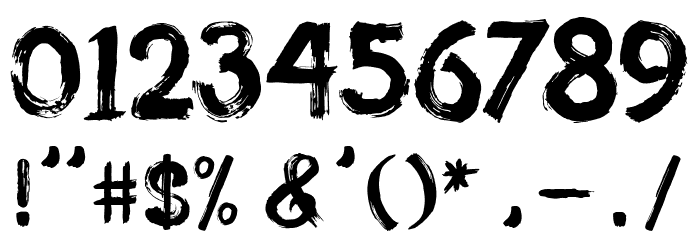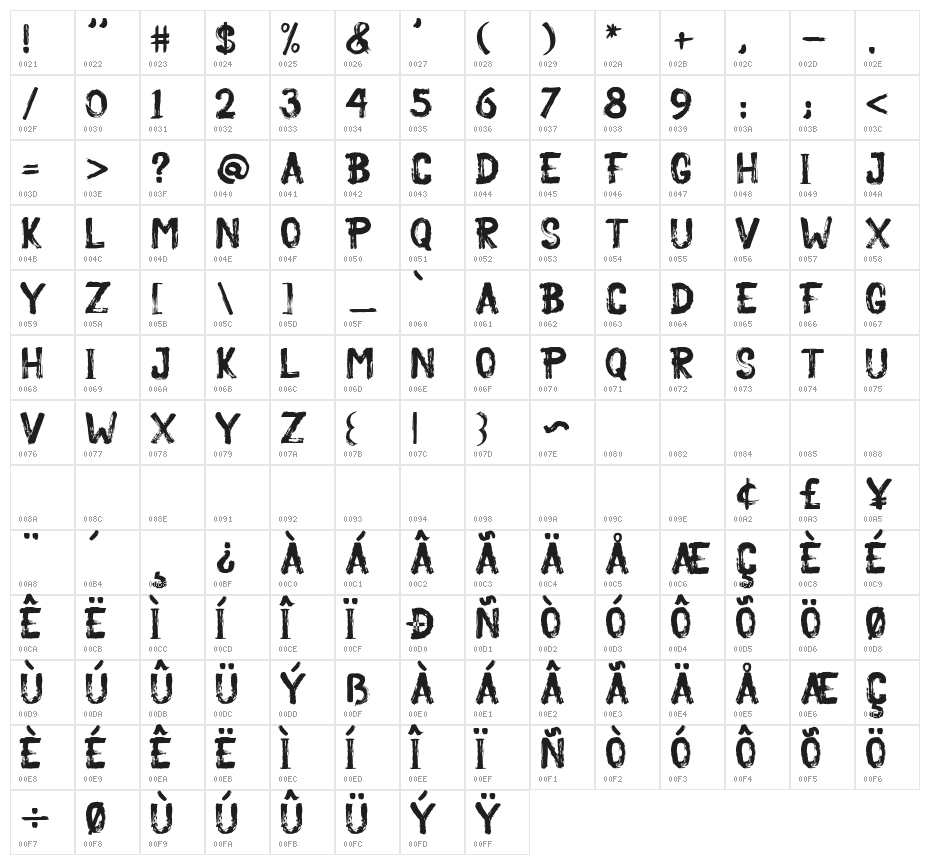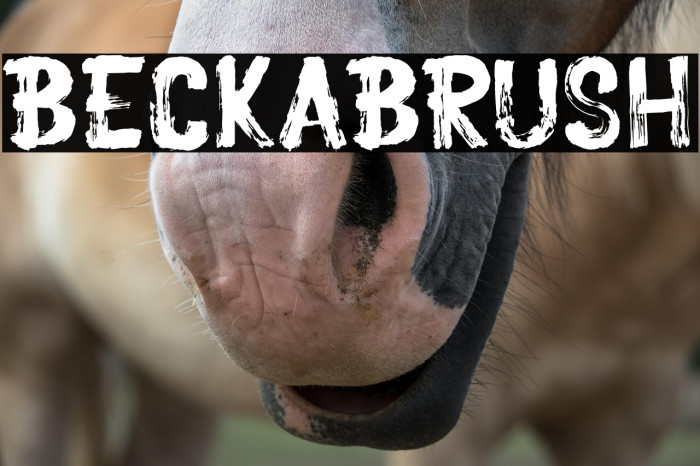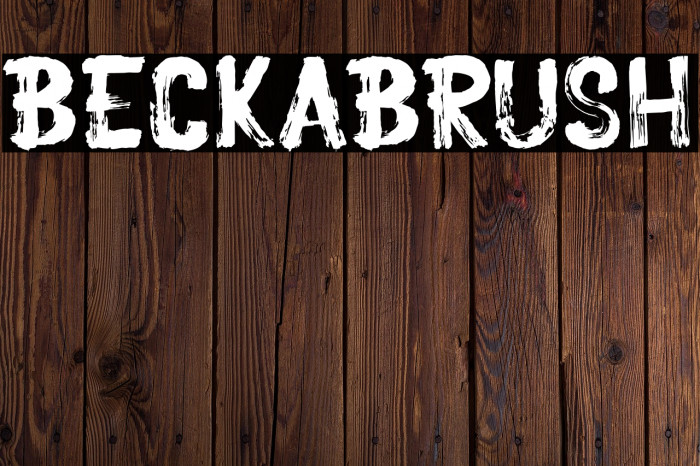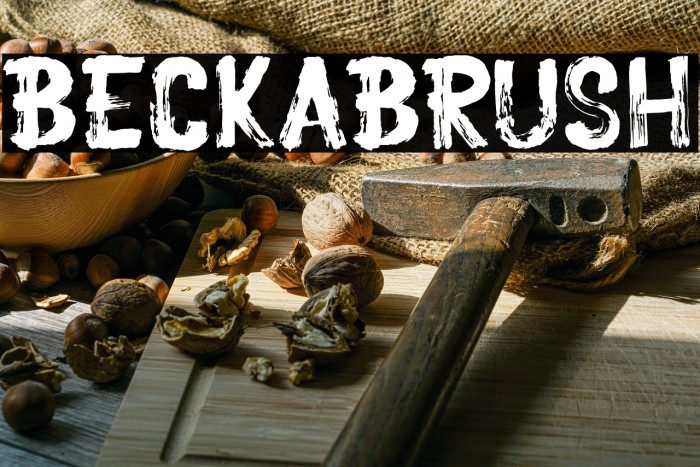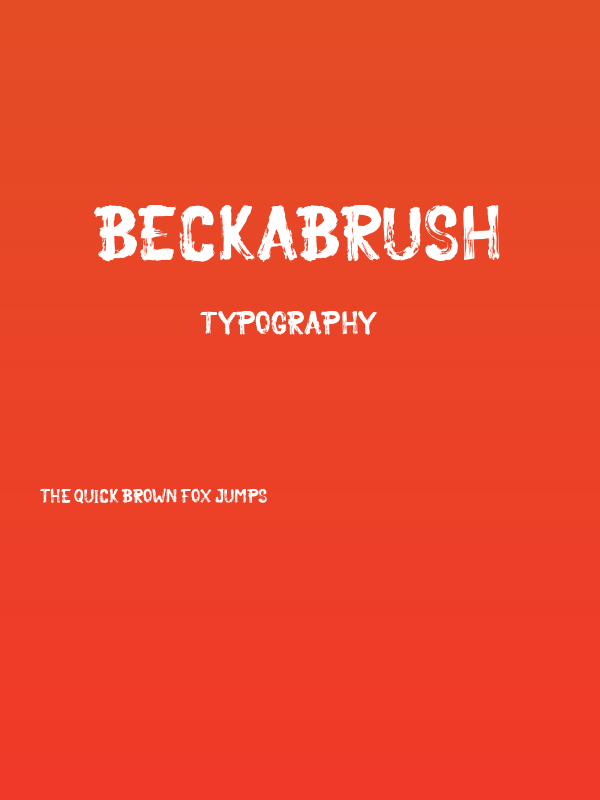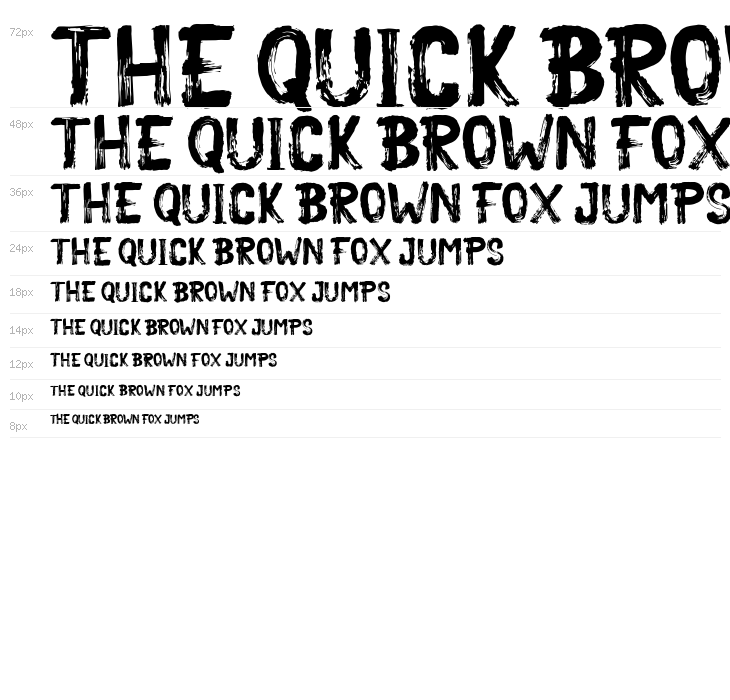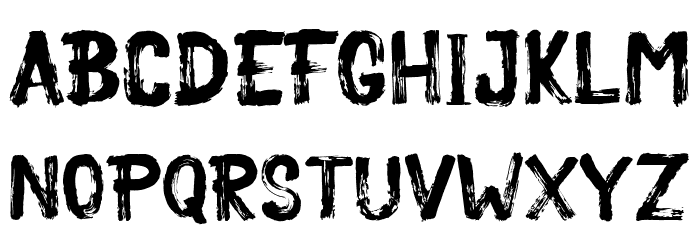
BeckaBrush Font
BeckaBrush Description
This font exhibits a bold, expressive brushstroke style, characterized by its rough, textured edges and dynamic appearance. Each letter appears as if it has been painted with a thick brush, giving it a raw and artistic feel. The strokes are uneven, adding to the handmade aesthetic, and the overall look is both energetic and impactful. This font is perfect for projects that require a strong visual statement, as it commands attention with its unique and creative design. The uppercase and lowercase letters maintain a consistent style, while the numerals and special characters complement the overall theme, ensuring versatility in various applications.
| Proposed Projects | Ideal for artistic posters, music album covers, creative branding, and dynamic social media graphics. |